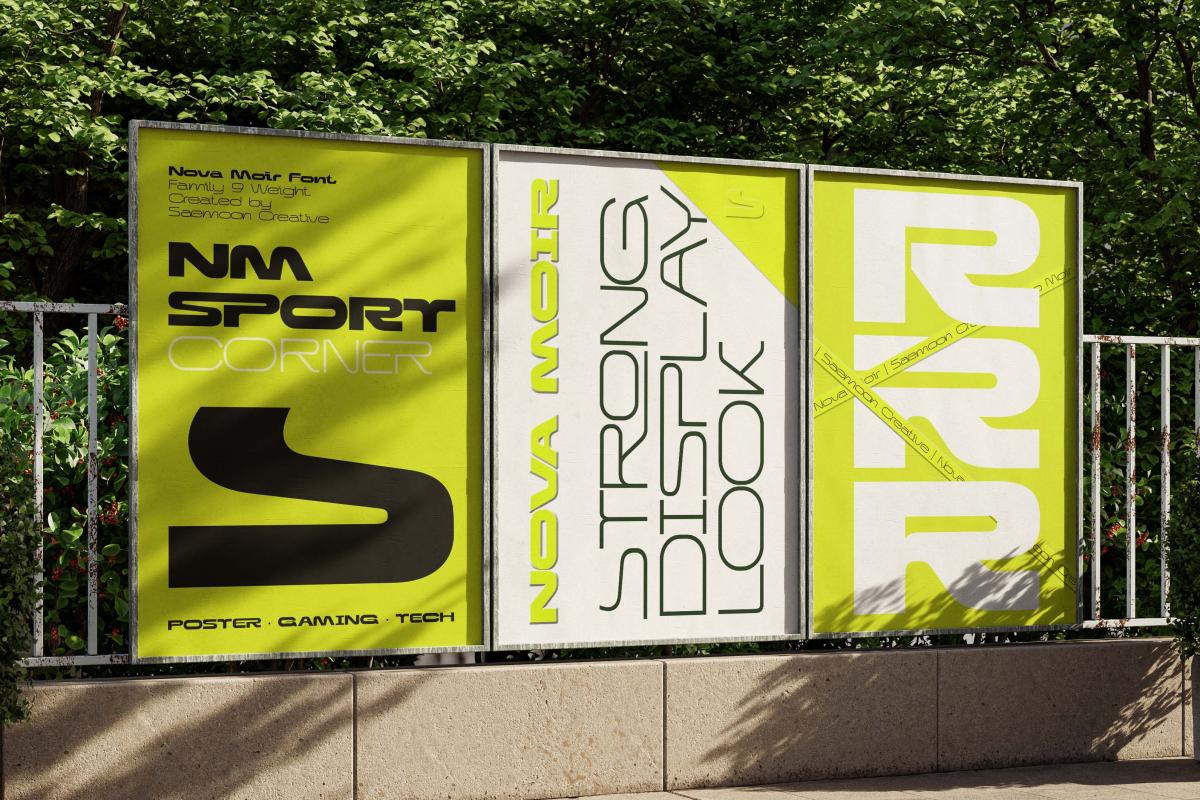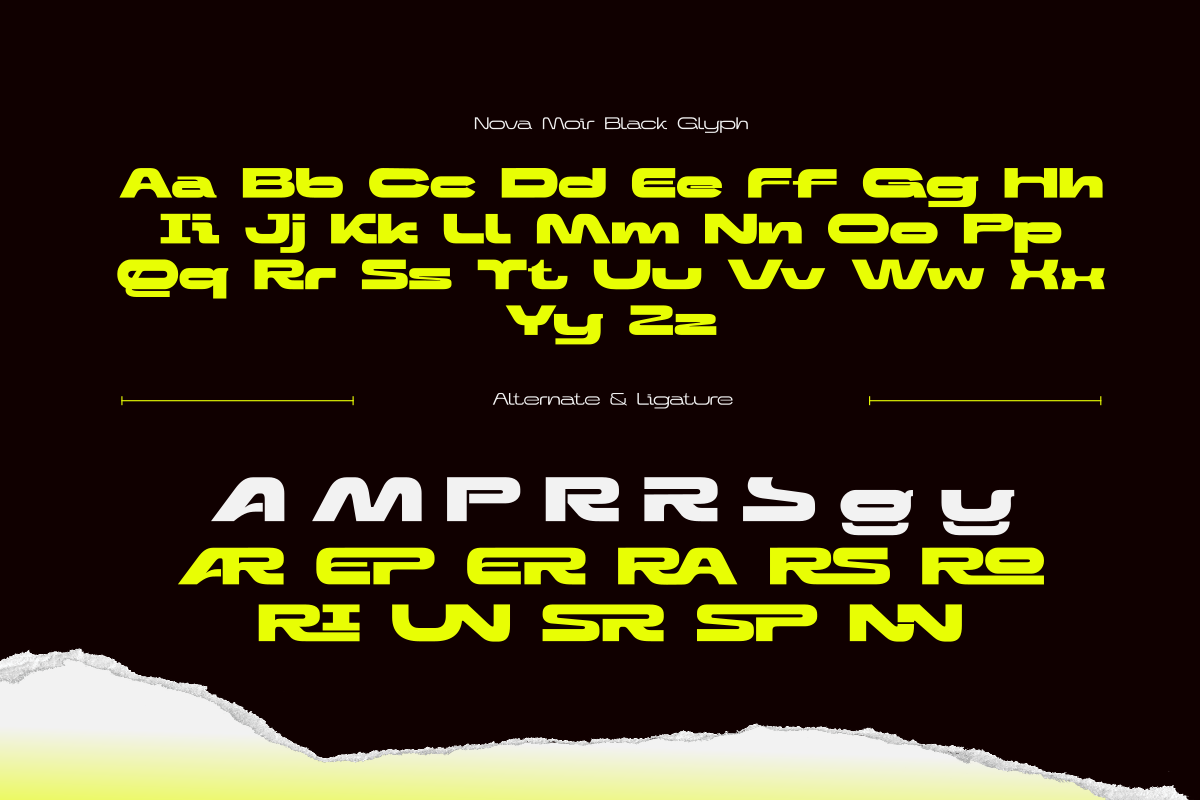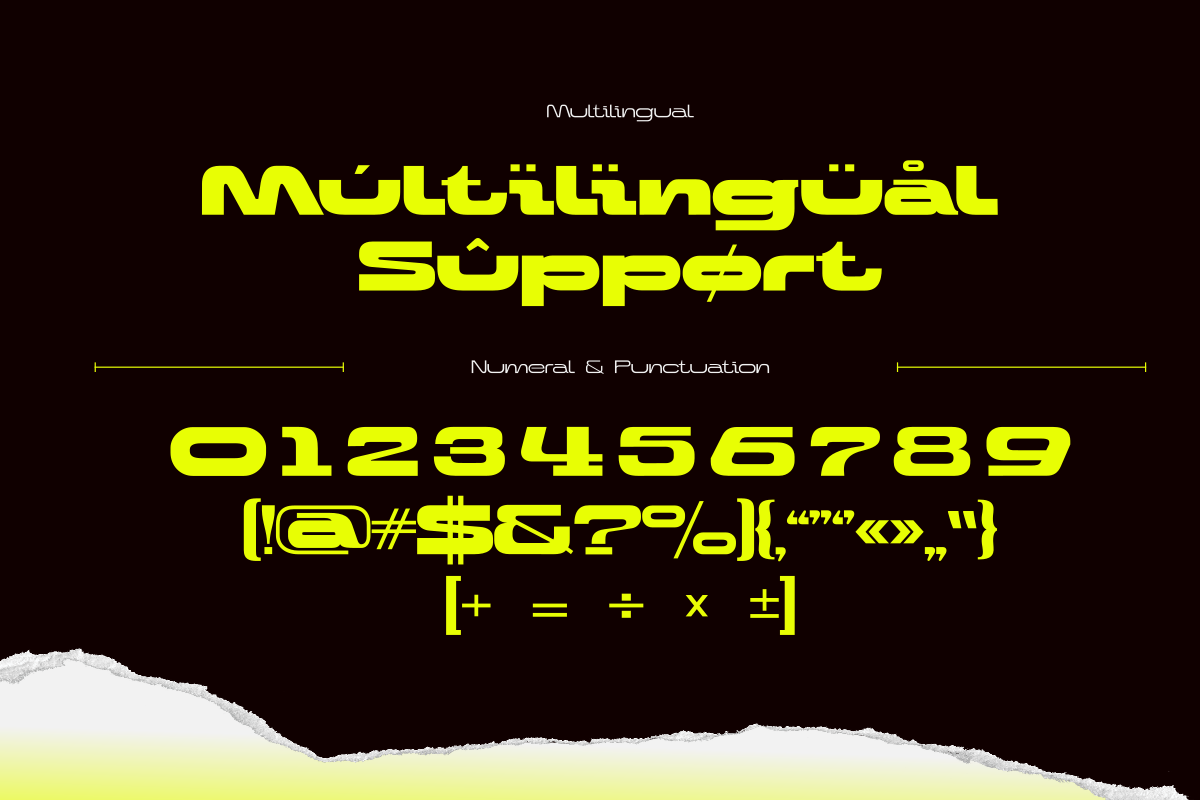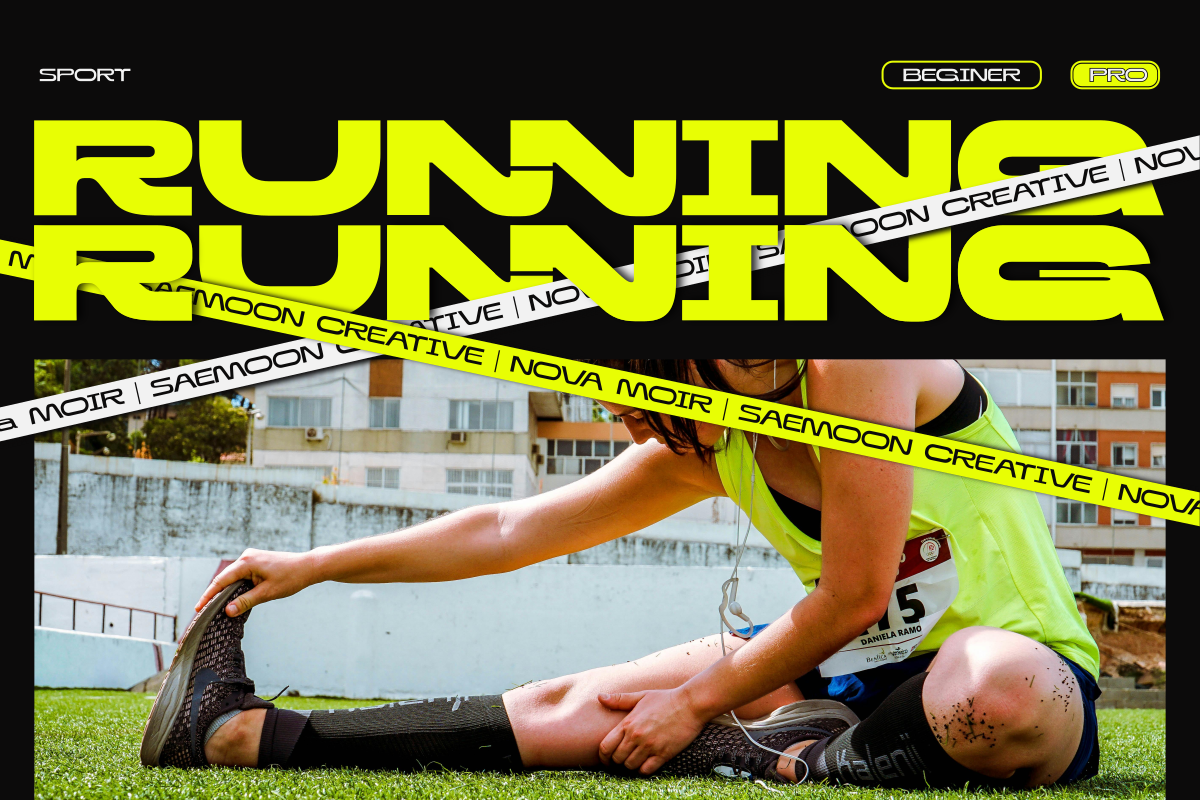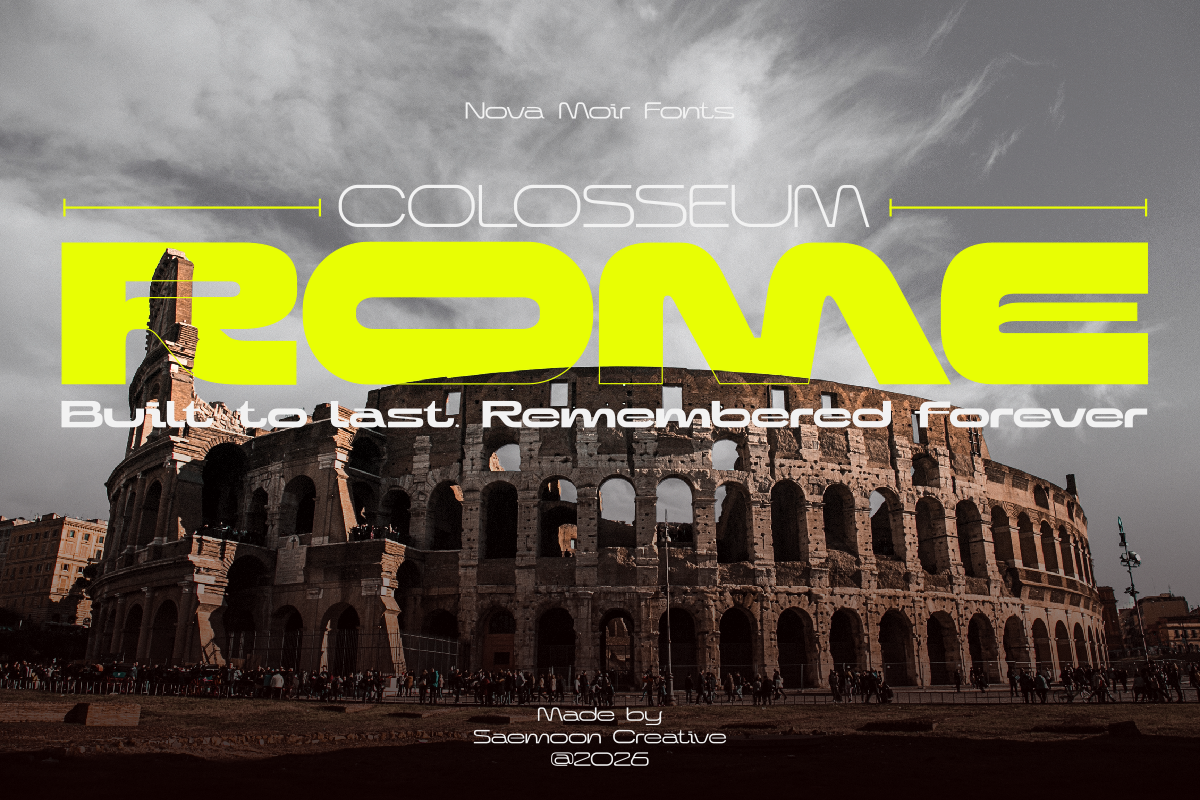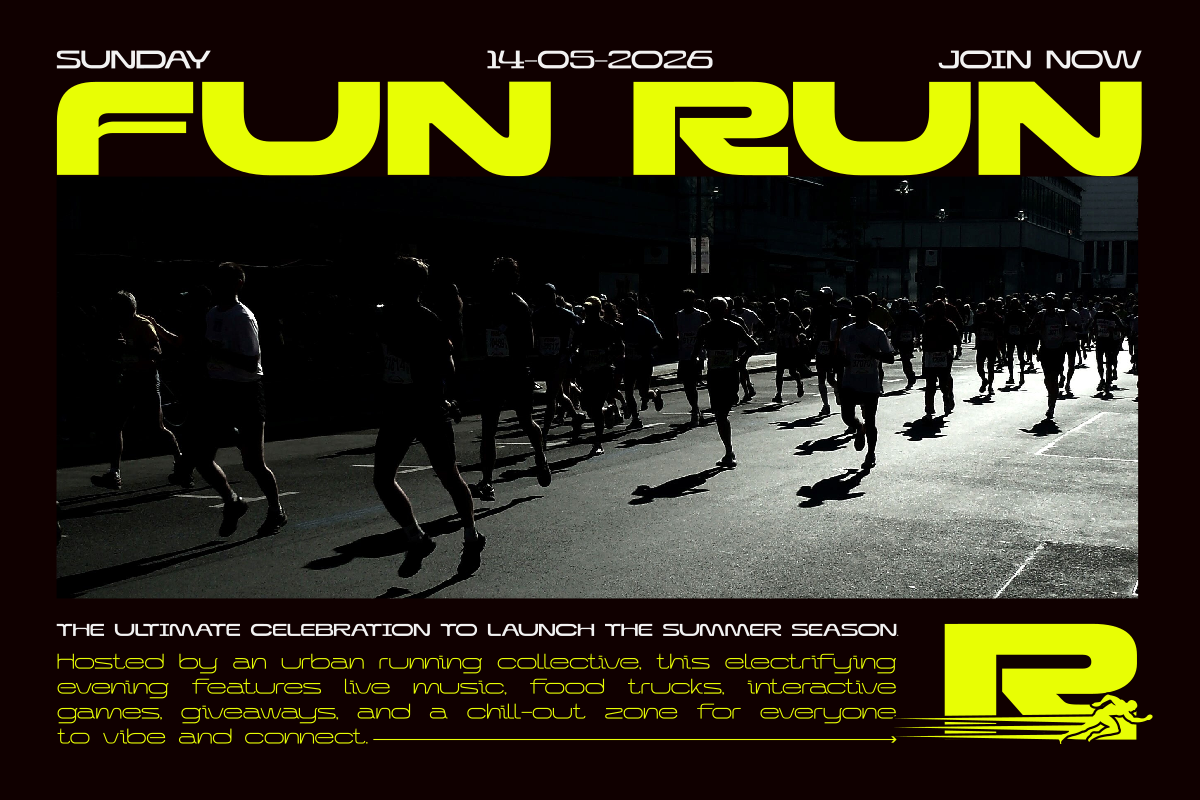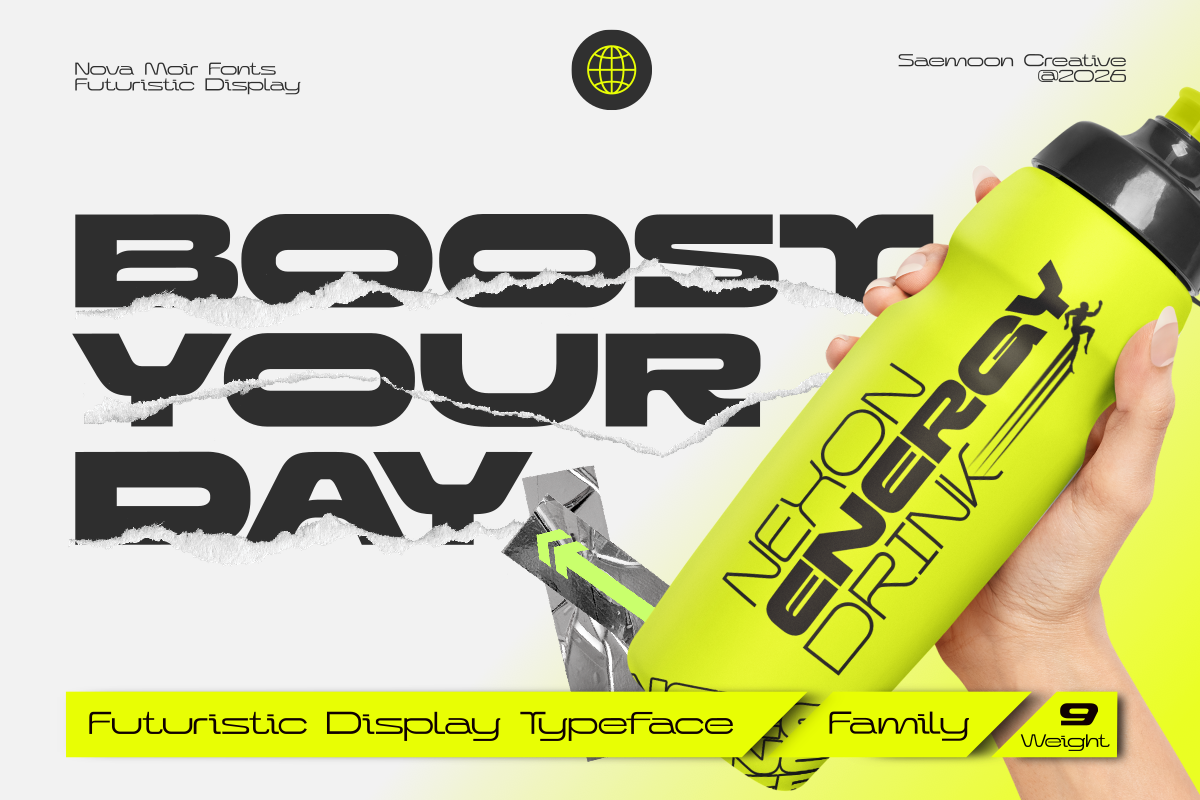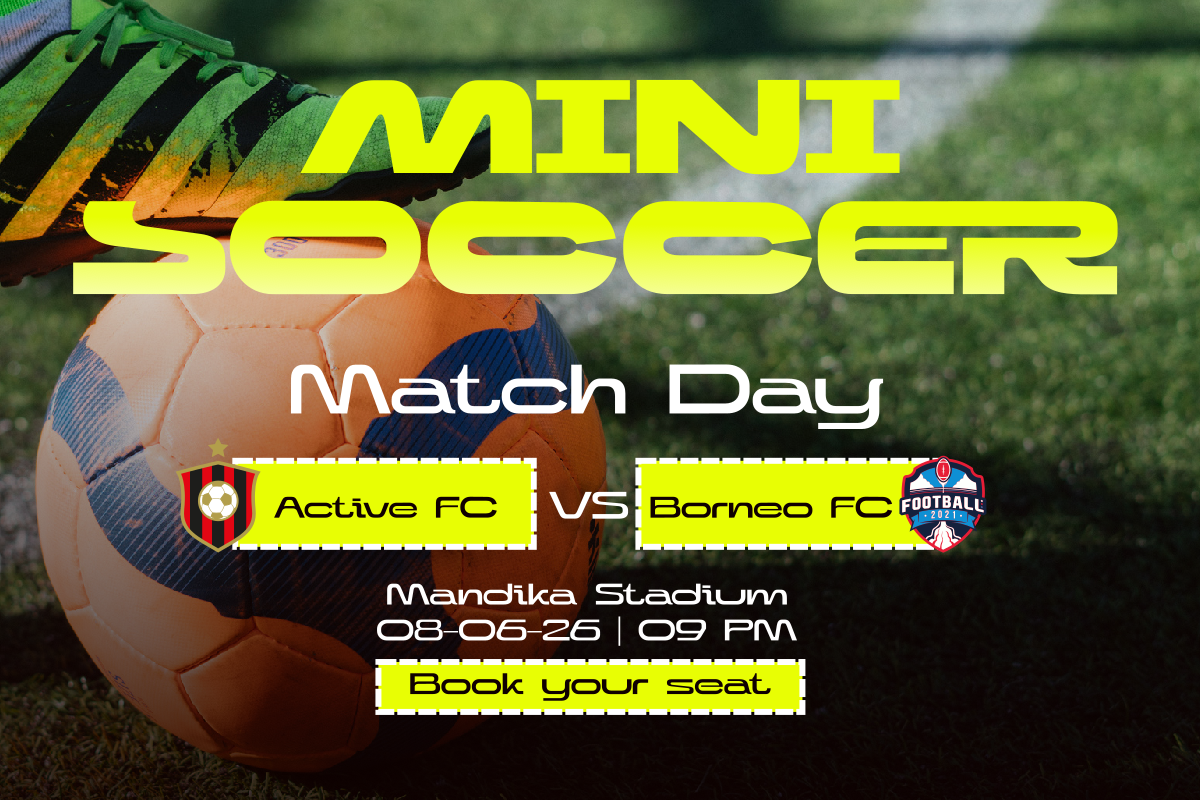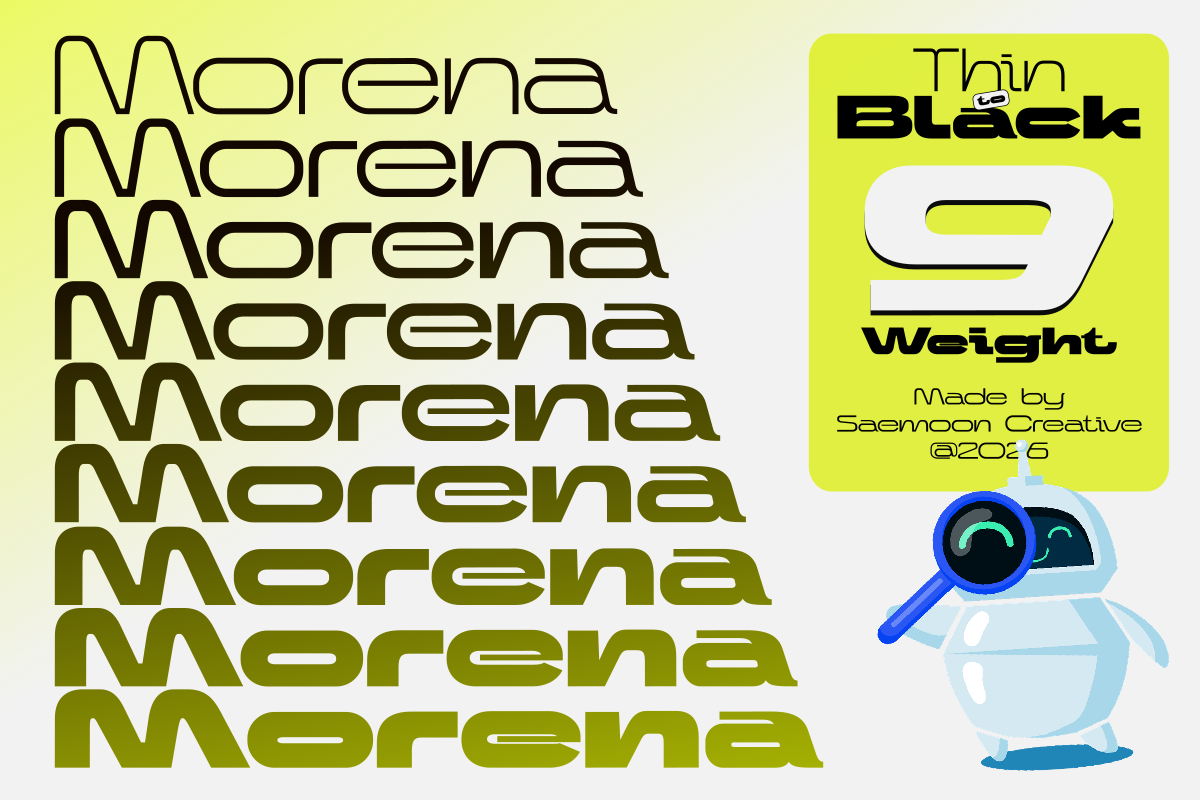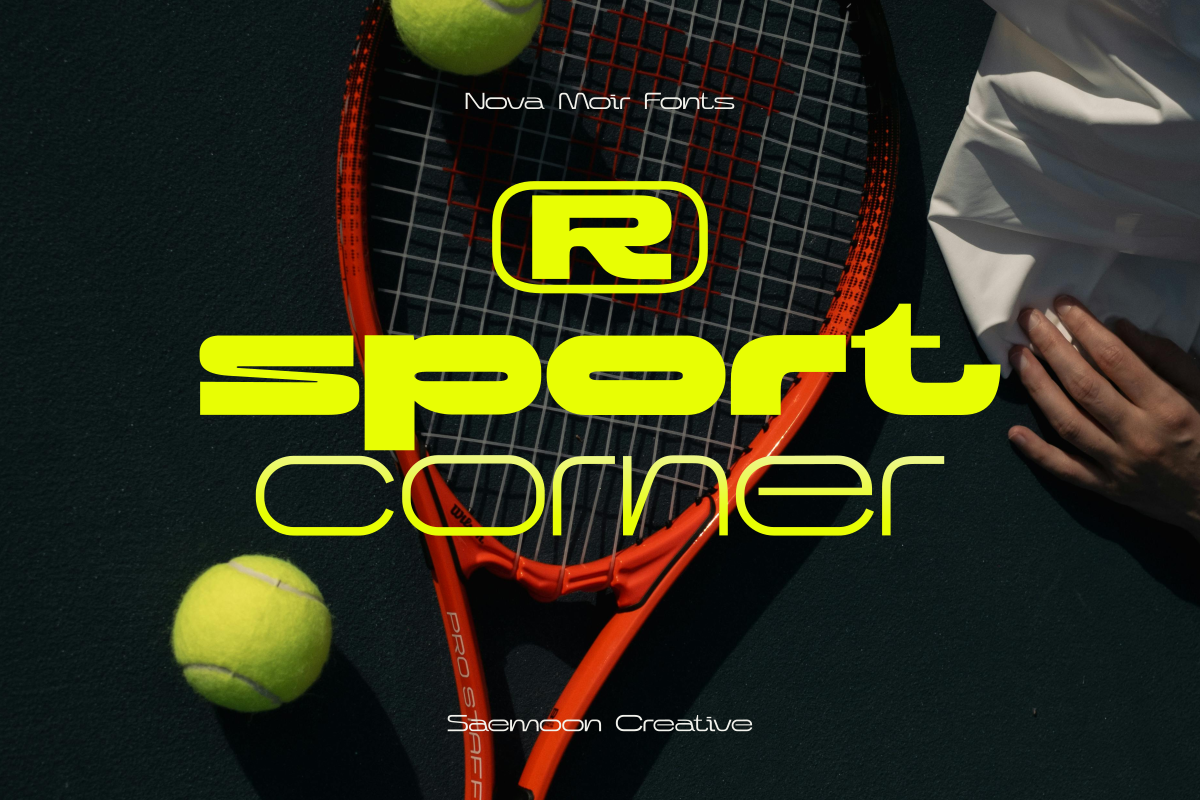
Nova Moir
Nova Moir is a futuristic display typeface designed to bring a bold, modern, and high-tech aesthetic to your creative projects. Featuring geometric letterforms, smooth curves, and a powerful visual presence, Nova Moir is crafted to stand out in headlines, branding, posters, gaming designs, technology themes, automotive projects, and digital media.
Built as a complete 9-weight family, Nova Moir offers excellent versatility, allowing designers to create strong typographic hierarchies while maintaining a consistent futuristic identity. Enhanced with stylish ligatures and alternate characters, this typeface provides greater creative flexibility and a more distinctive visual appearance.
Whether you’re creating sci-fi visuals, modern brand identities, esports graphics, product packaging, or cutting-edge promotional materials, Nova Moir delivers a sleek and dynamic look that elevates any design.
9 Weight Family
Alternate Characters
Uppercase & Lowercase Characters
Futuristic & Modern Style
Strong Visual Impact
Clean Geometric Construction
Advanced OpenType Features
Perfect for Logos, Headlines, Posters, Gaming, Technology, Automotive, UI Design, and Branding
Nova Moir — A futuristic typeface engineered for the next generation of design.